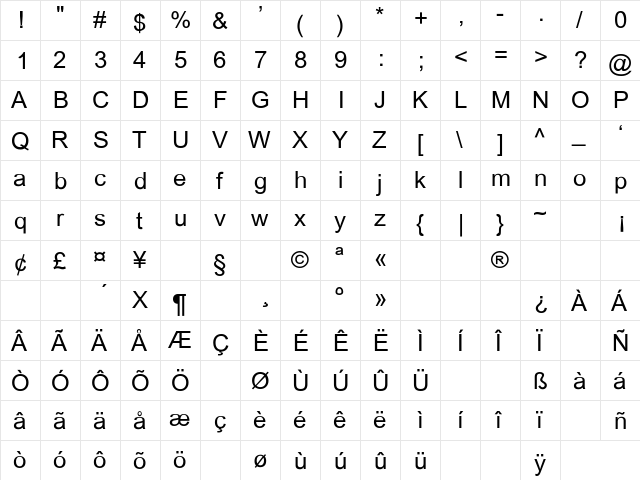
Hexon Regular Font Preview
Hexon Regular
Hexon Regular Font Details
Design Context for Hexon Typeface
Hexon offers clean, dependable letterforms without strong stylistic allegiance, making it a practical choice for designers who need flexibility.